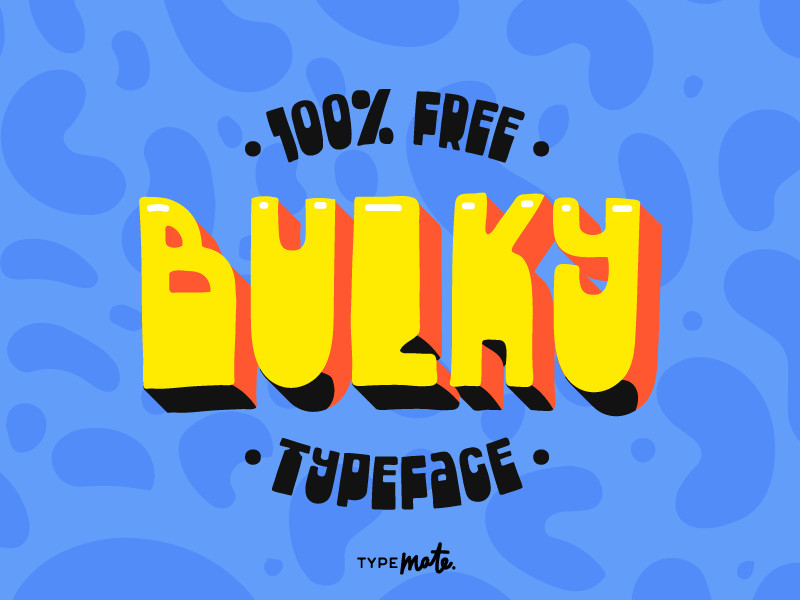
Free Bulky Typeface
Bulky Typeface – Cheerful, hand-drawn grotesque «Bulky» by Typemate.
The «Bulky» will looks pretty cool in the headlines, logos, posters, on music covers, T-shirts prints, packaging and small texts.